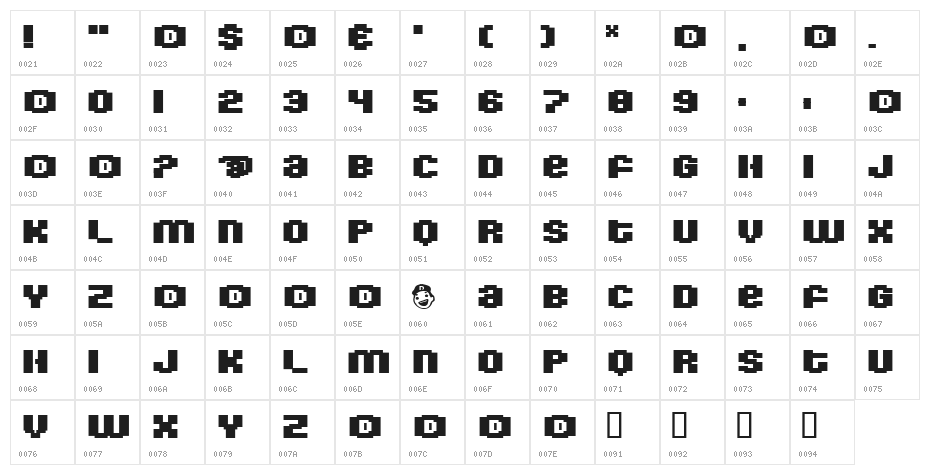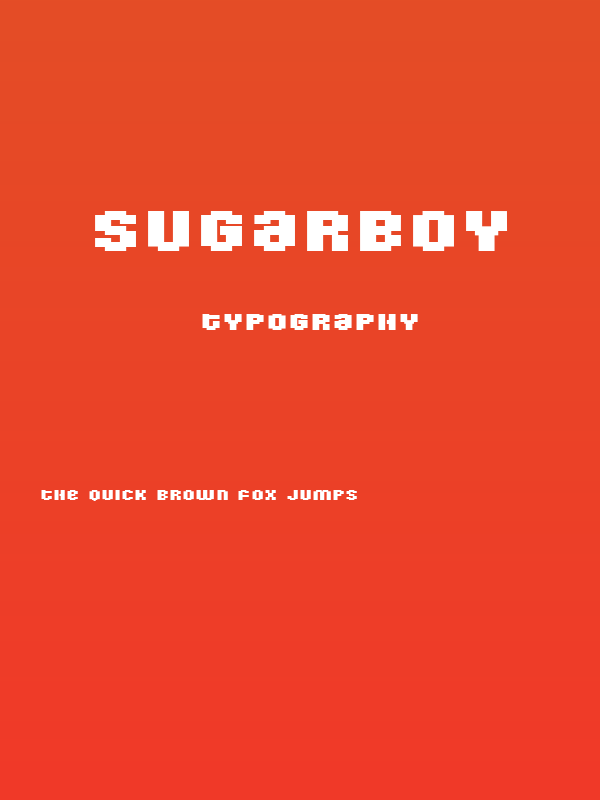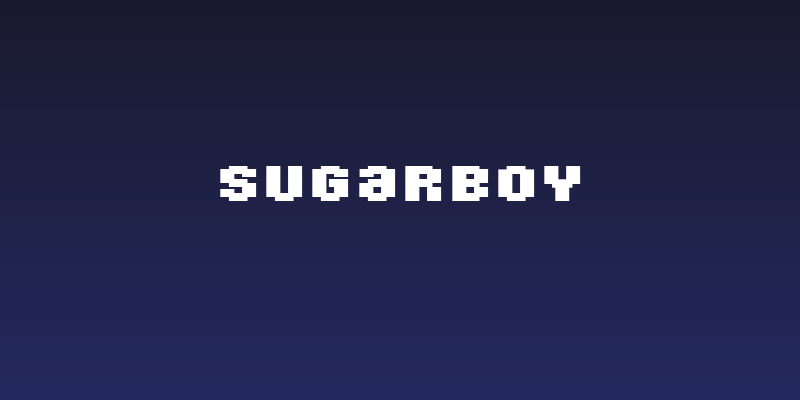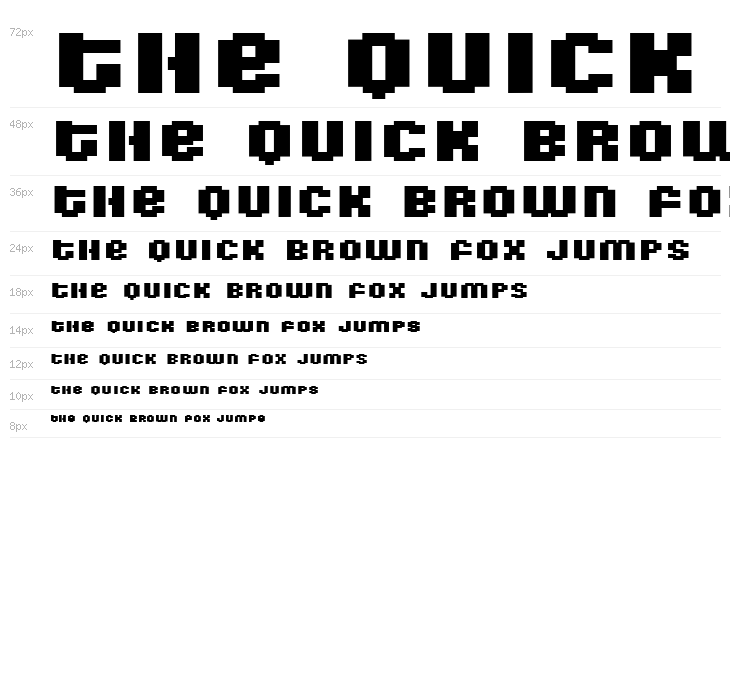
SugarBoy Font
This font features a bold, pixelated style reminiscent of early digital and arcade aesthetics. Each character is constructed with a blocky, square form that gives it a distinct retro appearance. The uppercase and lowercase letters share a uniform height, enhancing its geometric and monospaced look. Numbers and special characters follow the same design principles, maintaining consistency across the font. Its simplicity and clarity make it ideal for projects that require a nostalgic or tech-inspired theme.
| Overall Style | Vintage |
| Use Case | Logos, Headlines, Digital displays |
| Proposed Projects | Ideal for video game design, retro-themed posters, digital art, and tech-related branding. |